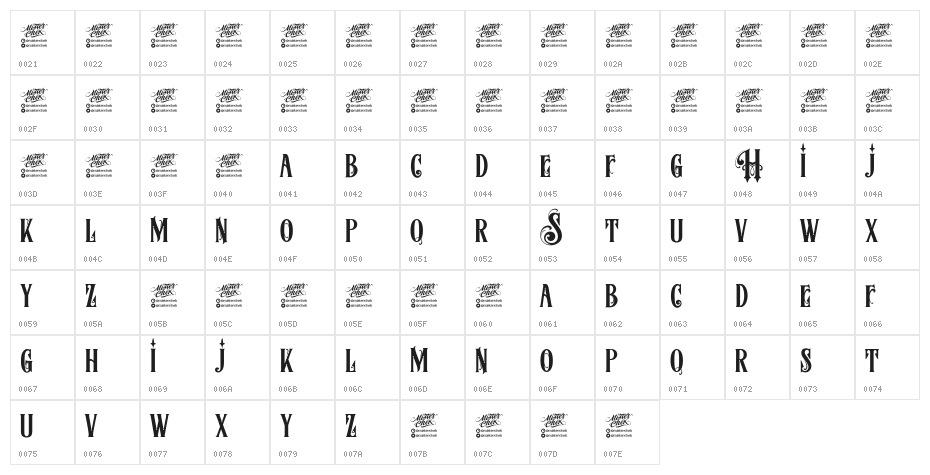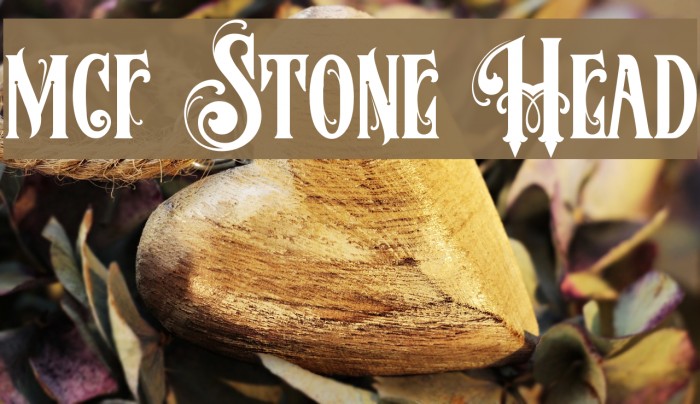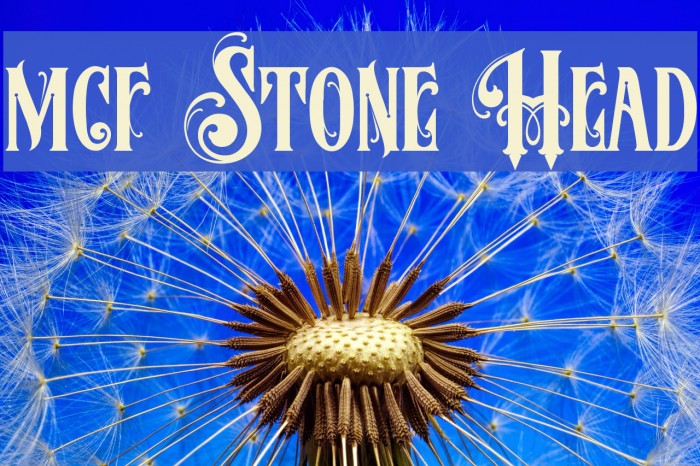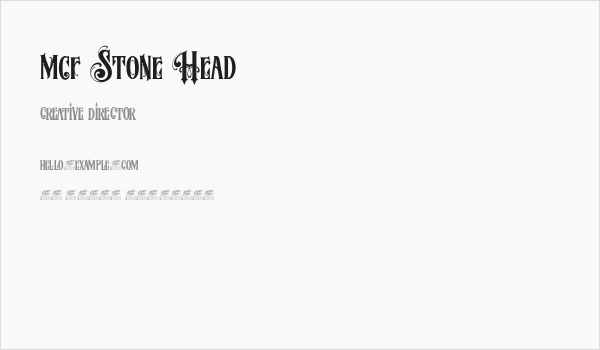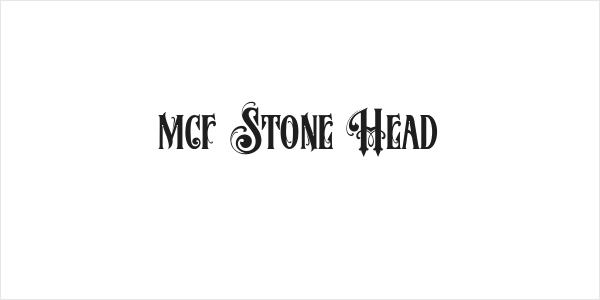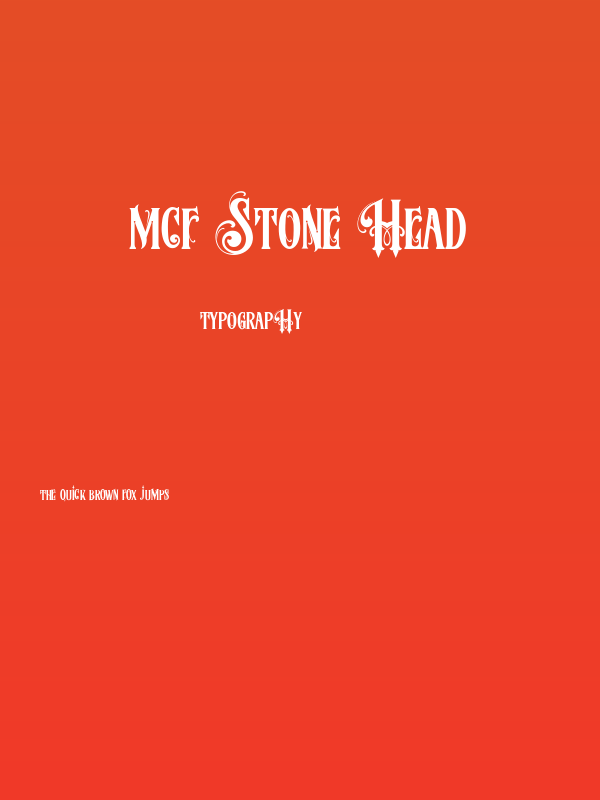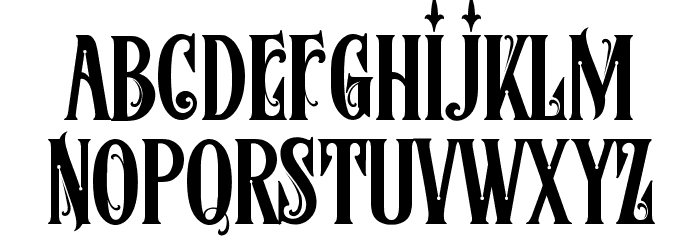
MCF Stone Head Font
MCF Stone Head Description
This font features a bold and decorative style with intricate details and flourishes that give it a unique and artistic appearance. The uppercase letters are particularly ornate, with swirls and embellishments that add a touch of elegance and sophistication. The overall design is reminiscent of vintage or Victorian-era typography, making it suitable for projects that require a classic and decorative touch. The font's boldness ensures it stands out, while the detailed elements provide a sense of craftsmanship and attention to detail.
| Proposed Projects | Ideal for use in branding, posters, invitations, and any project requiring a decorative and vintage aesthetic. |